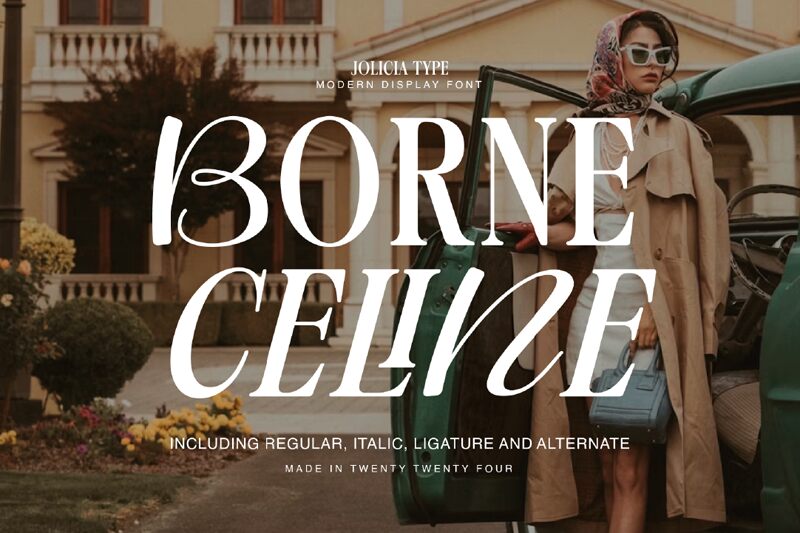
Borne Celine font by Jolicia Type Foundry is a fancy serif font that is both elegant and modern, even though its design was inspired by the classic letter forms of the early ’90s. It has a dramatic presence that the creator managed to balance by merging the old styles with a contemporary style using present-day design principles. Created with durable readability and digital applications in mind, it comes in two versions – regular and italic.
This display font is perfect for print design such as books, magazines, posters, business cards, certificates, etc. Pair it with the right font to use on packaging designs, label and branding designs, or go solo and create headers and headlines when working on digital flat designs such as landing pages, apps, or banners. Borne Celine is a wonderful choice for usage on social media platforms or for printed marketing materials.
Introducing Borne Celine, a sophisticated serif font infused with signature elegance. This meticulously crafted typeface features a harmonious blend of traditional serif elements and a unique touch that captures the essence of Parisian chic. With a comprehensive set of regular and italic styles, along with expertly crafted ligatures and alternate glyphs, Borne Celine offers designers a wide range of creative possibilities. Whether you are crafting elegant branding materials, editorial layouts, or stylish invitations, Borne Celine adds a touch of refinement and individuality to any project.